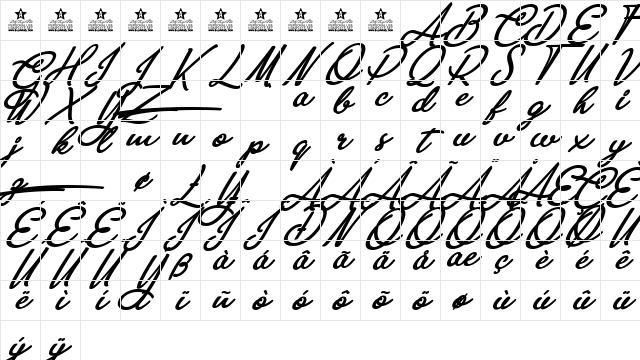
Anastasia Script Personal Use Regular Free Font
Anastasia Script Personal Use Regular
Foundry: Billy Argel
Designer: Billy Argel
Design Context for Anastasia Script Personal Use
Anastasia Script Personal Use flows with the natural rhythm of handwritten lettering, making it ideal for designs that call for warmth and personal expression.
Font Pairing: Combine Anastasia Script Personal Use with a simple geometric sans for maximum contrast - the tension between flowing curves and clean structure is a classic typographic pairing.
Pro Tip: Use Anastasia Script Personal Use for short runs of text - names, titles, or taglines. Extended body copy in script faces tires the eye quickly.